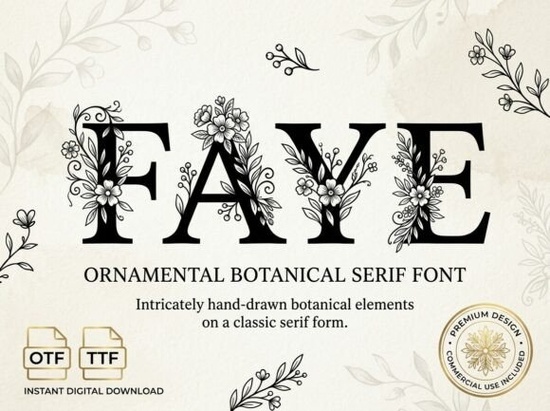
When you need a typeface that immediately grabs attention for a bold headline or a striking logo, the Faye Font is a fantastic choice. This decorative display font brings a strong visual personality to your projects, making it ideal for creators who want to step away from standard, everyday typography. Whether you are designing packaging for a small business or creating a standout poster, this all-caps typeface ensures every letter looks like a deliberate piece of art.
What makes this typeface stand out for display projects?
The main appeal of this typeface lies in its unique artistic elements. It is specifically built to be the center of attention. Because it is an all-caps (uppercase only) display typeface, it lacks lowercase letters entirely. While this might seem limiting at first glance, it actually forces you to focus on high-impact design. Every single character is crafted to hold its own weight, making it perfect for short, punchy text where readability and style need to work together seamlessly. The strong visual personality means you do not need to add heavy graphics or complex backgrounds to make your text pop; the letters do the heavy lifting for you.
Who should use this font in their creative projects?
This typeface works best for specific use cases where you need a polished, professional finish without sacrificing creativity. It is highly versatile across different mediums and industries.
- Small business owners looking for artistic logos, custom branding, or elegant storefront signage.
- Print-on-demand sellers who need bold, eye-catching text for t-shirts, mugs, tote bags, and stickers.
- Graphic designers working on creative packaging, book covers, or magazine headlines that require a premium feel.
- Crafters using cutting machines or digital planners who want decorative initials or striking monograms.
If you are working on a project that requires a mix of long paragraphs and small text, you will need to pair it with a simpler, highly readable typeface for the body copy. For instance, if you like the decorative vibe but need something with lowercase letters for longer text blocks, you might want to pair it with a simpler style like the Alica display typeface for your secondary elements. You can also browse the full decorative Faye styles available on the platform to find the perfect match for your specific layout.
How do you get the best results when using all-caps fonts?
Working with uppercase-only typefaces requires a slightly different approach than standard typography. Here are a few practical tips to keep your designs looking clean and professional:
- Increase the letter spacing (tracking). All-caps letters often look cramped when typed closely together. Adding a little extra space between the characters makes the text much easier to read and gives it a more luxurious feel.
- Keep the text short. Since every letter is highly decorative, use this style for single words or short phrases rather than full sentences.
- Play with sizing and contrast. Because the visual weight is so strong, you can often use a slightly smaller point size than you would with a standard bold font while still maintaining a large physical presence. Pair it with plenty of white space to let the design breathe.
Before you start your next design, keep this quick checklist in mind to ensure your typography looks its best:
- Check that your text is typed in all uppercase letters to see the correct character shapes.
- Adjust the tracking to give the decorative letters room to breathe on the canvas.
- Pair the main headline with a simple, clean secondary font for any subtext or body paragraphs.
Taking a few extra minutes to adjust the spacing and pairing will make your final project look incredibly professional and ready for your audience.